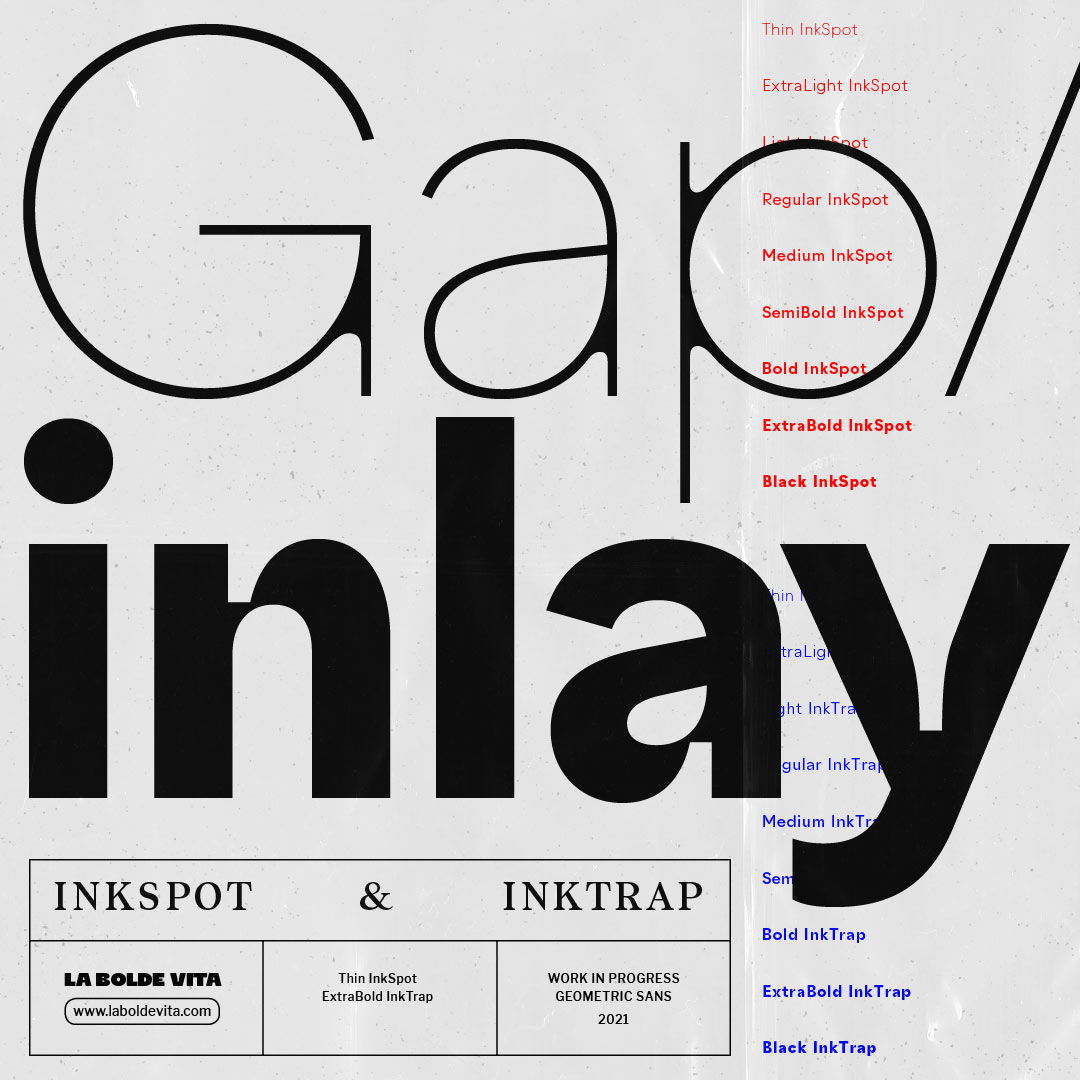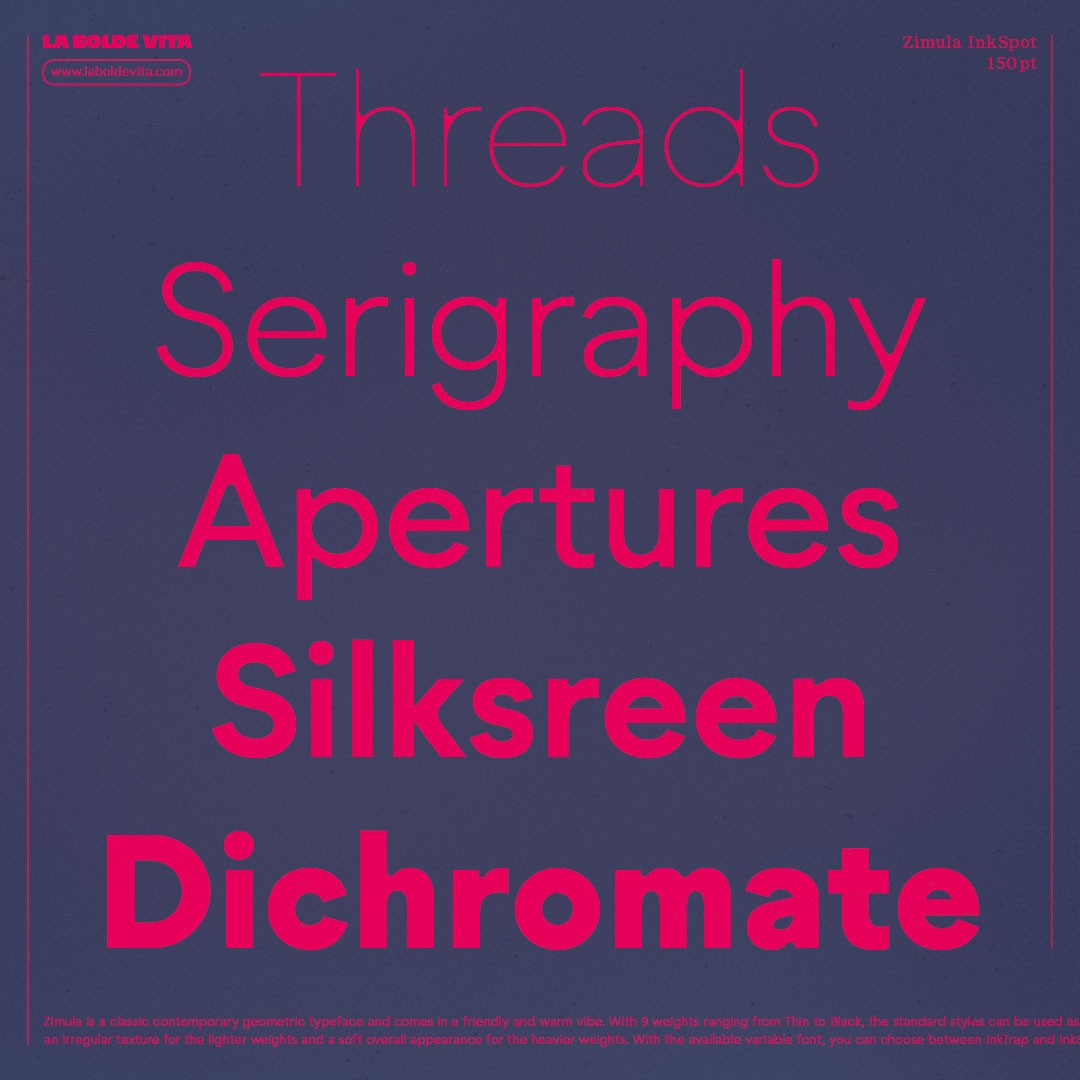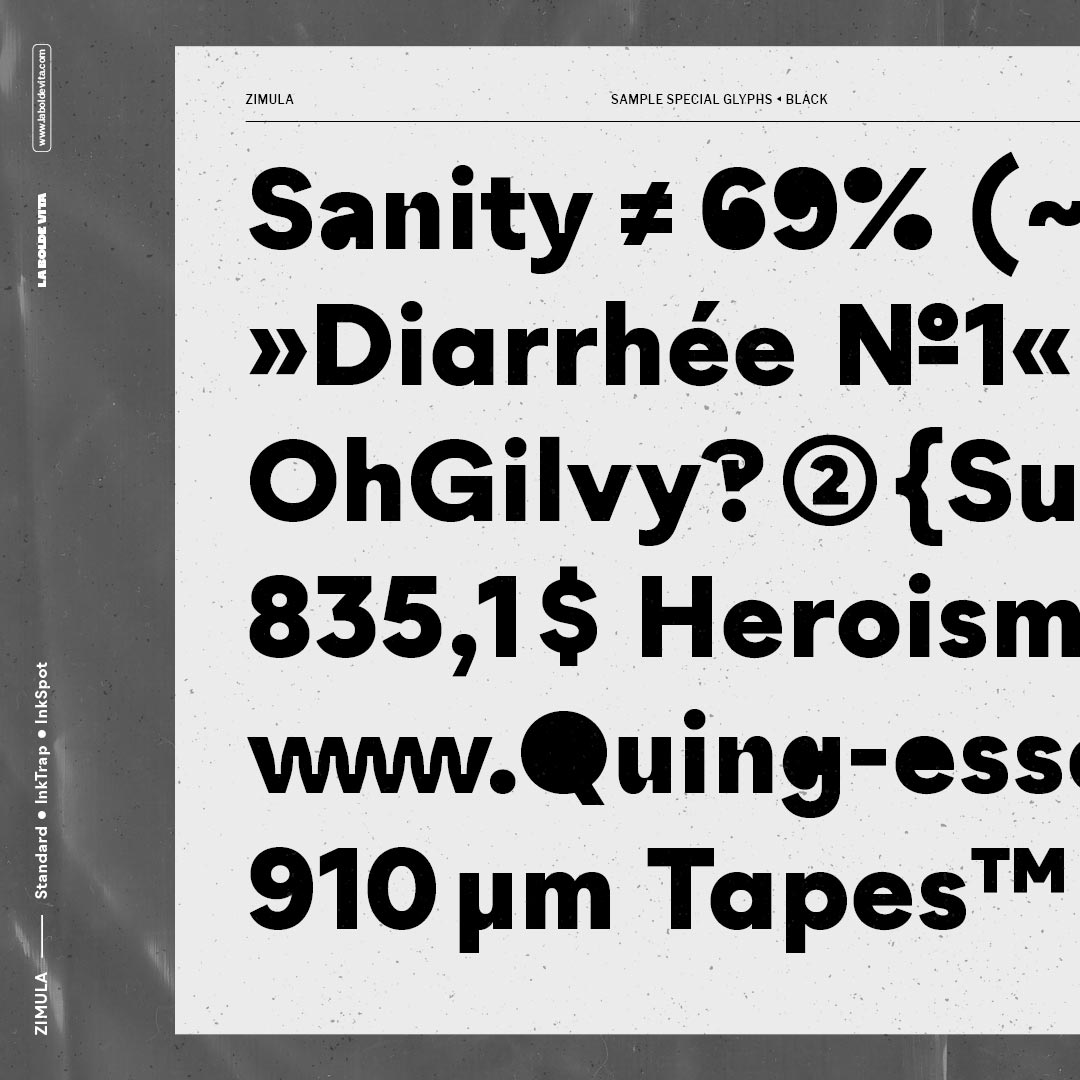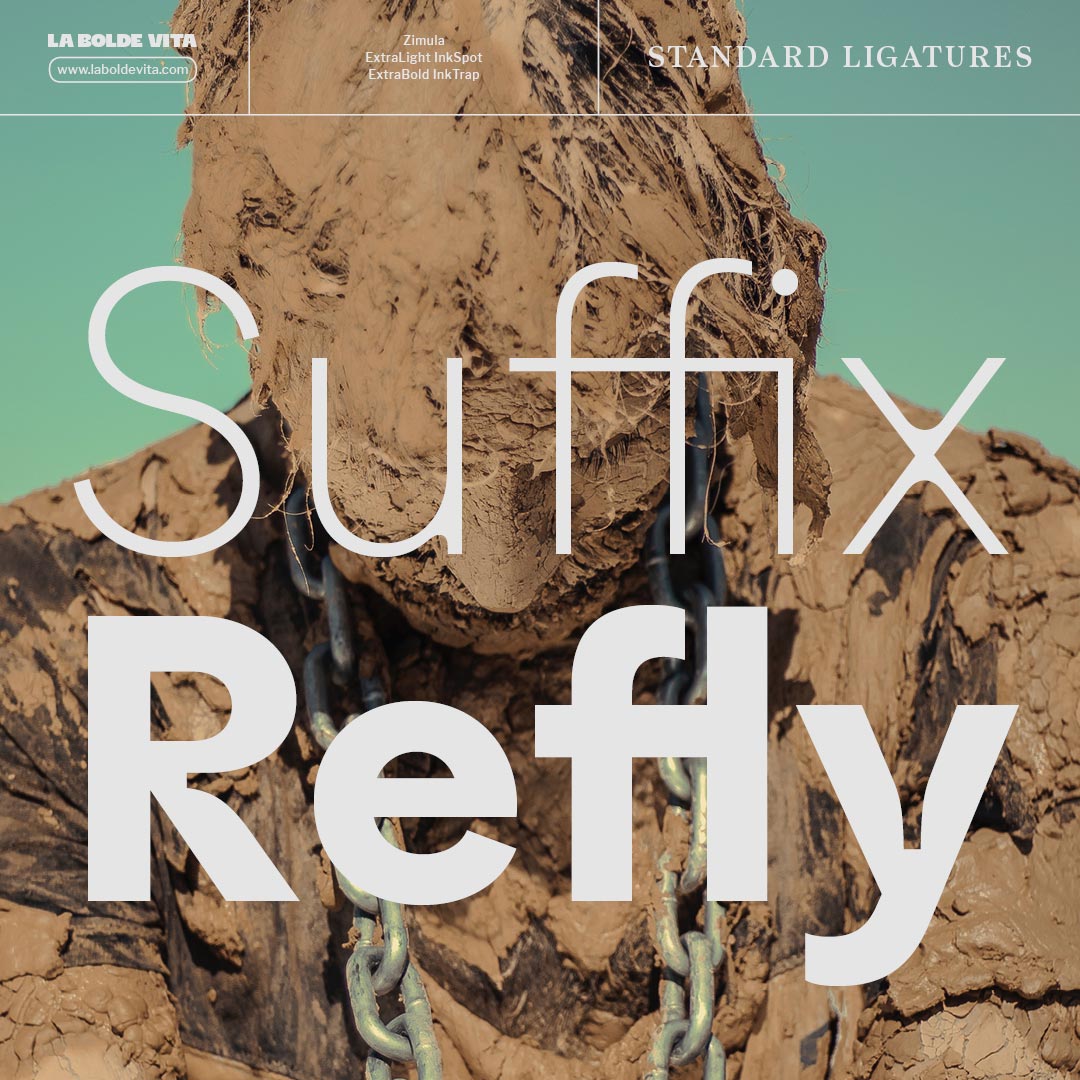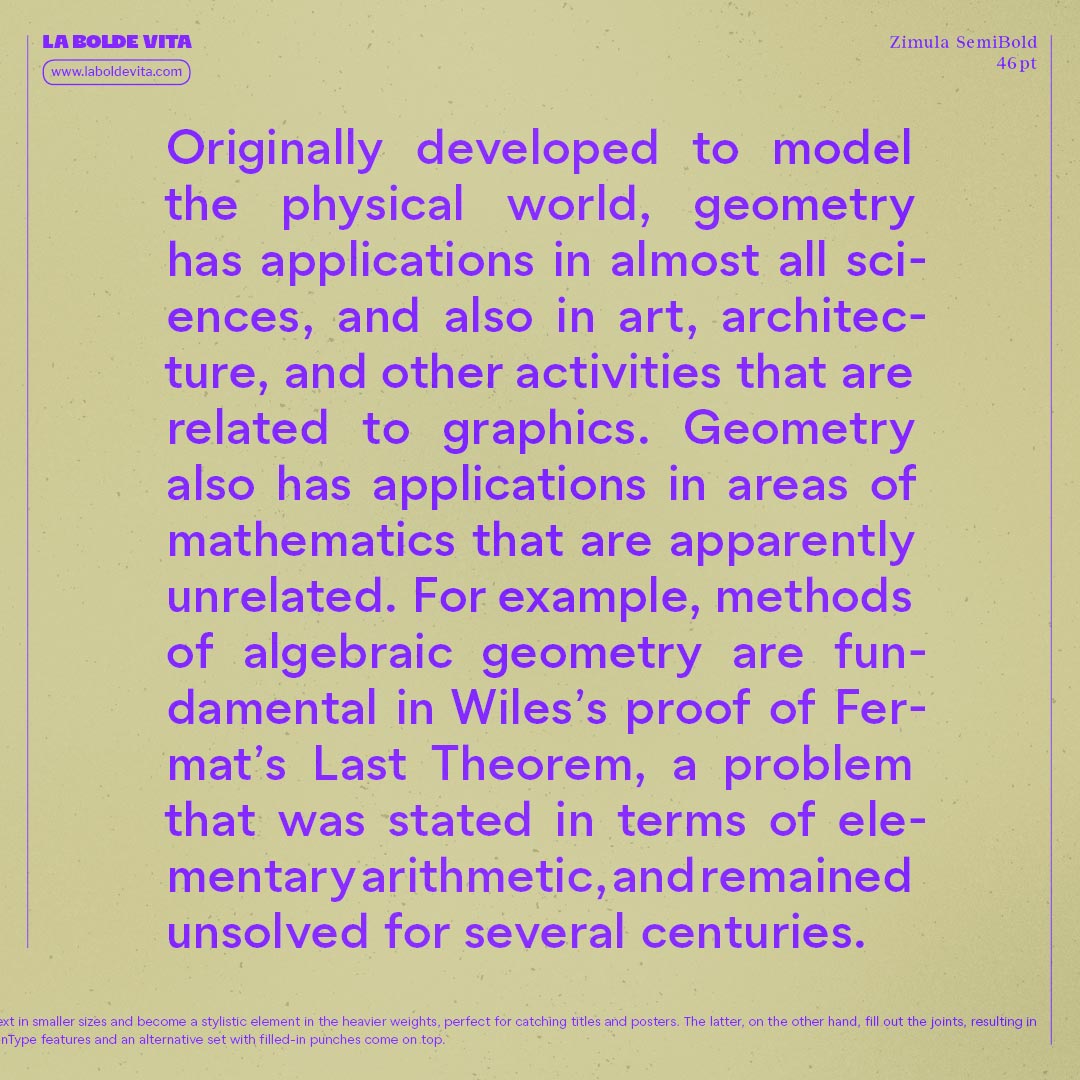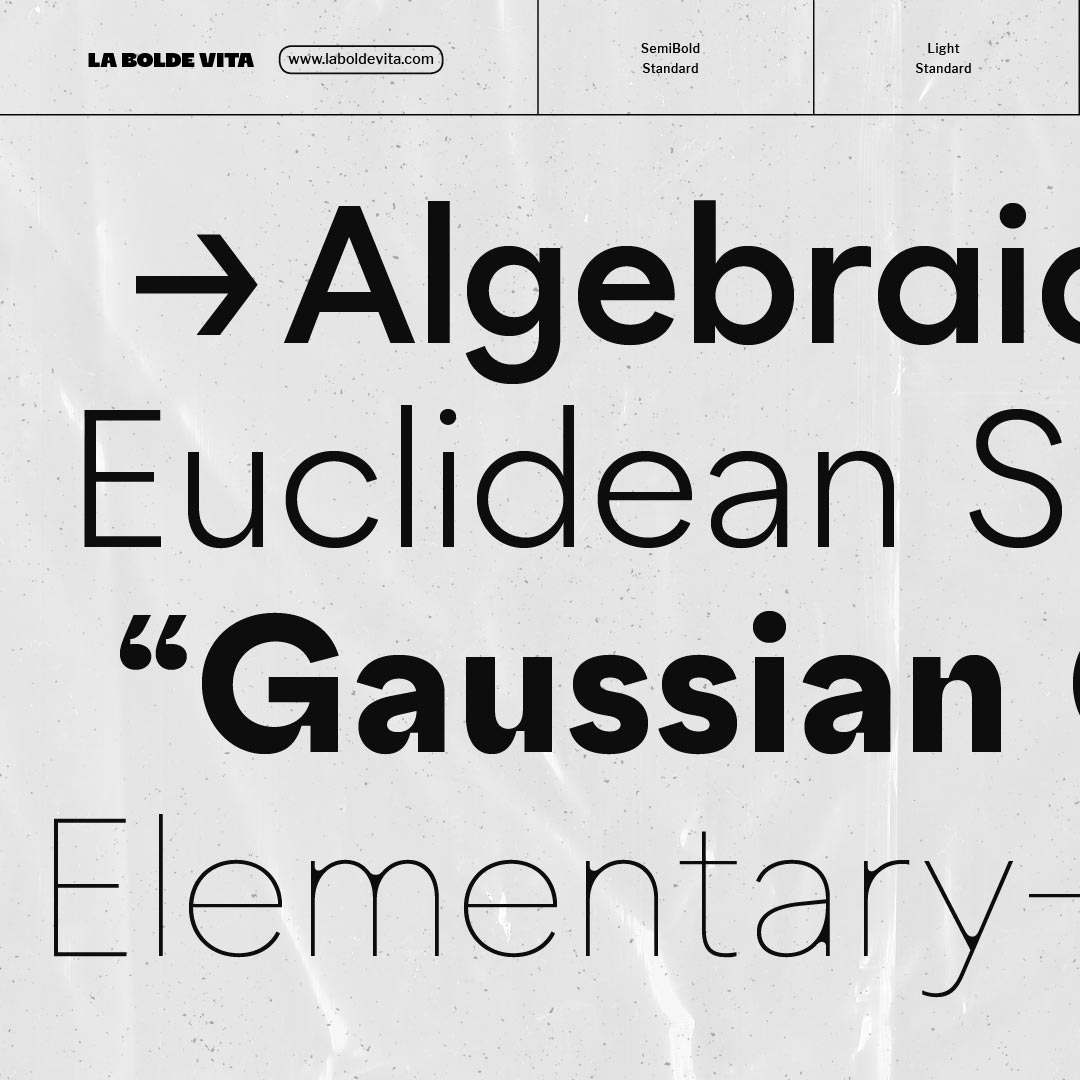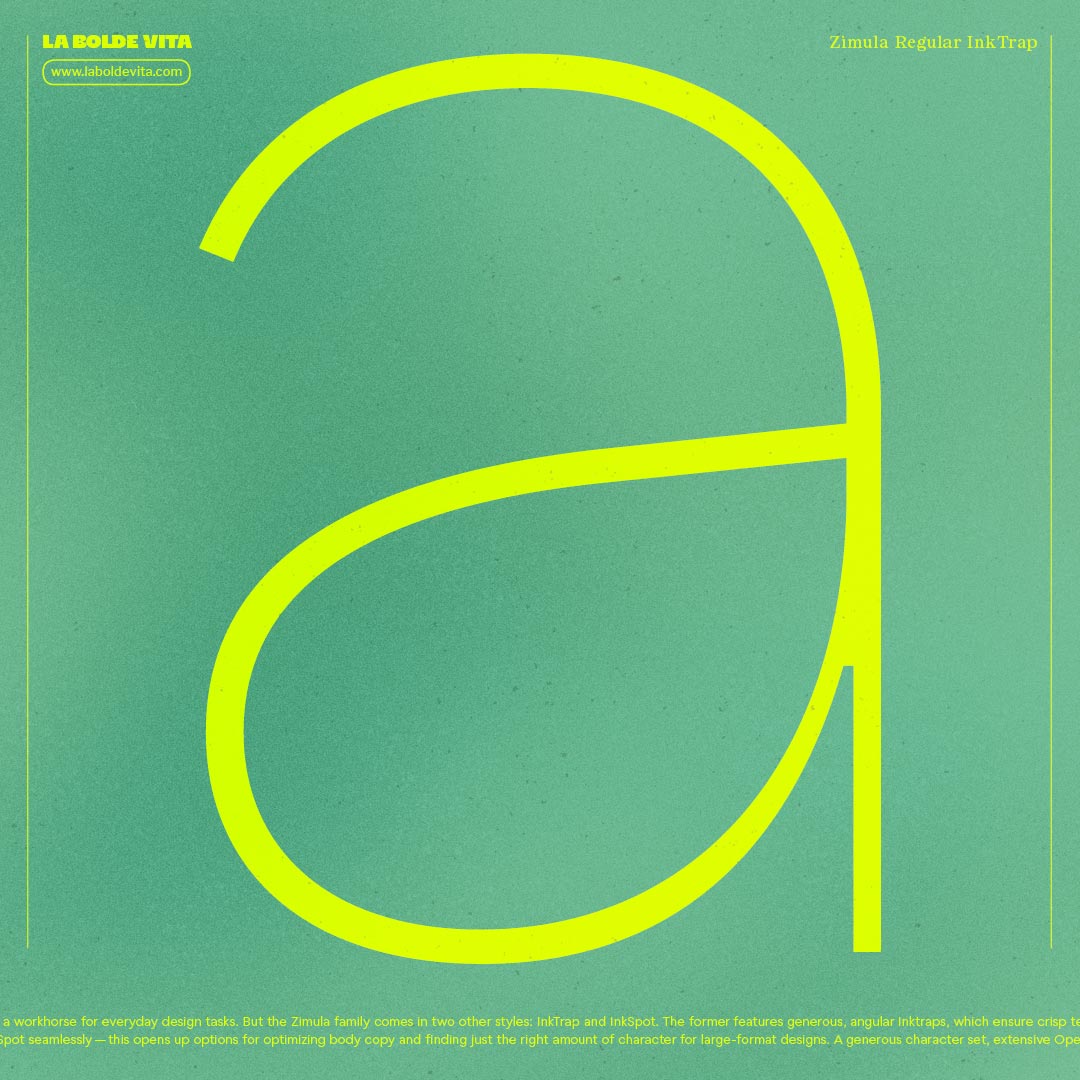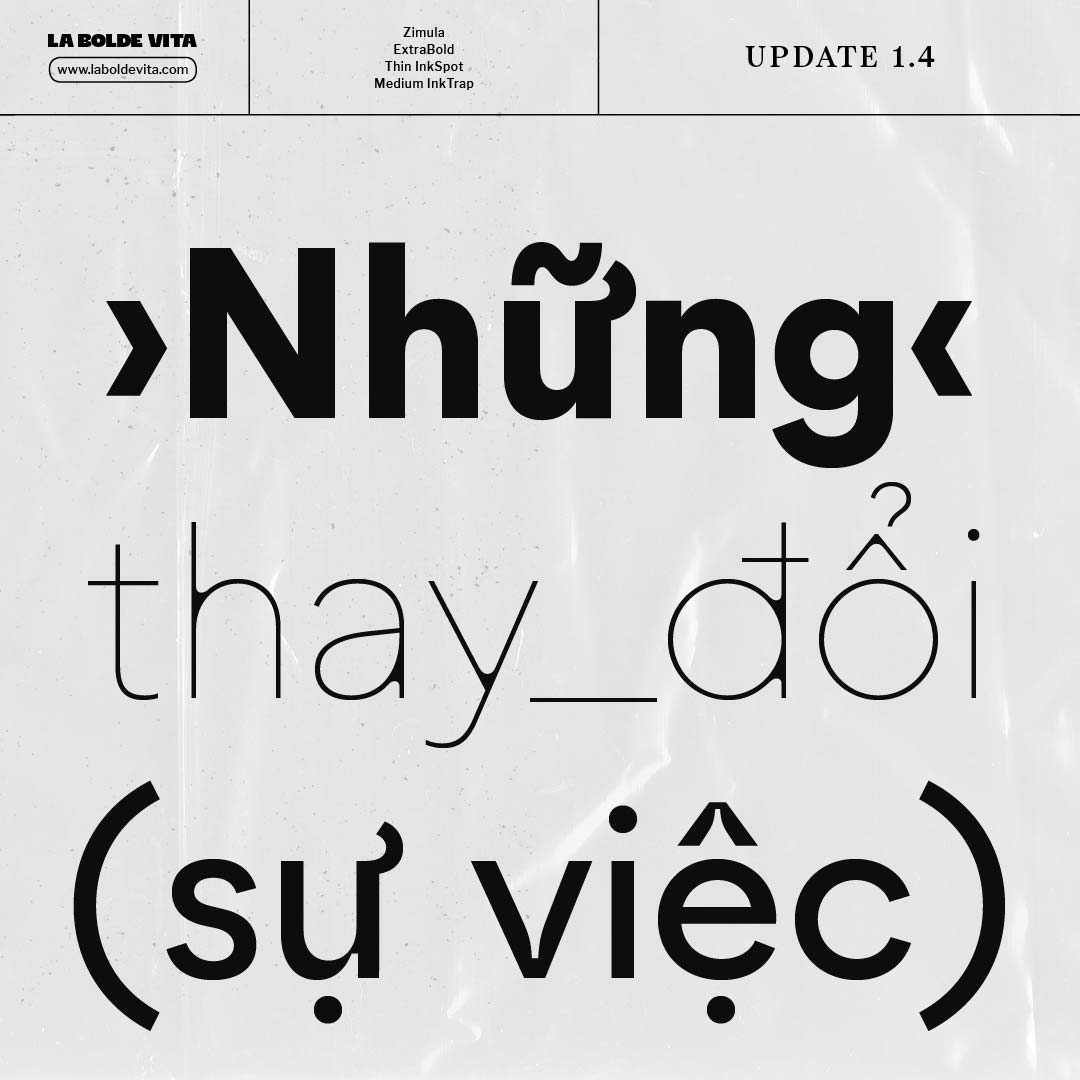
Zimula is a classic contemporary geometric typeface and comes in a friendly and warm vibe. With 9 weights ranging from Thin to Black, the standard styles can be used as a workhorse for everyday design tasks.
But the Zimula family comes in two other styles: InkTrap and InkSpot. The former features generous, angular Inktraps, which ensure crisp text in smaller sizes and become a stylistic element in the heavier weights, perfect for catching titles and posters. The latter, on the other hand, fill out the joints, resulting in an irregular texture for the lighter weights and a soft overall appearance for the heavier weights.
With the available variable font, you can choose between InkTrap and InkSpot seamlessly — this opens up options for optimizing body copy and finding just the right amount of character for large-format designs. A generous character set, extensive OpenType features and an alternative set with filled-in punches come on top.
Extended in 2023
Released in 2021
Geometric Sans
9 weights in 3 styles
1011 Glyphs
Alternate filled forms
Standard Family
InkSpot Family
InkTrap Family
All weights and styles of Zimula come with essential features for editorial and branding usage — speaking of alternates, ligatures, case-sensitive forms and various figure styles.
Filled alternates
Circled numbers
Case sensitive forms
Zimula comes with 1011 glyphs, covering the Latin AF (including Latin Extended-A Unicode Range), alternates for »a« and »G«, ligatures and some decorative filled forms.
Thanks to the coverage of the Latin-Extended-A Unicode range the Zimula family supports most modern Latin languages. Actually, completing our own Latin AF Characterset containing some additional accented glyphs, you can set text in 302 languages, including Vietnamese. If you still think your language isn't supported, you can look up the full list below or in the specimen.